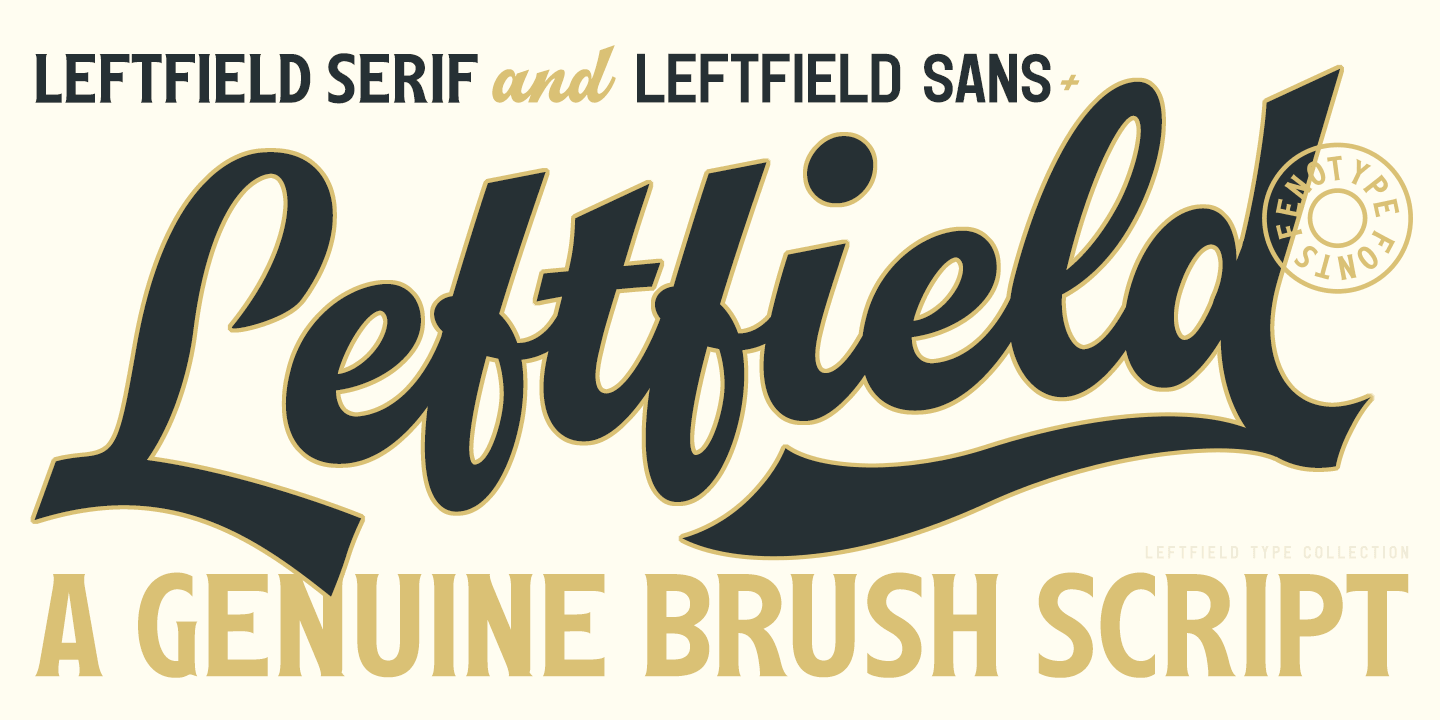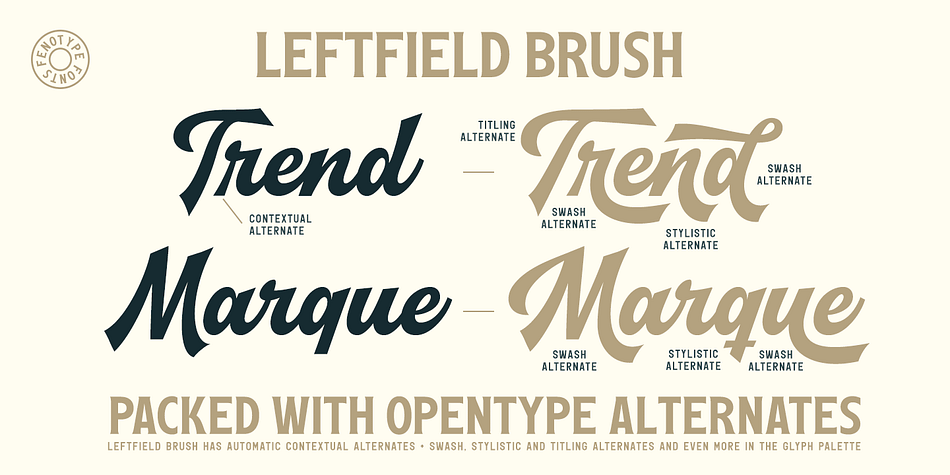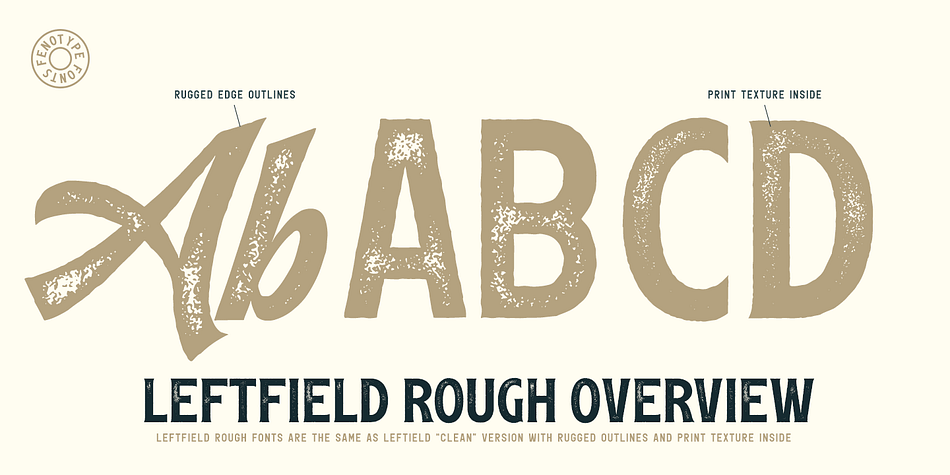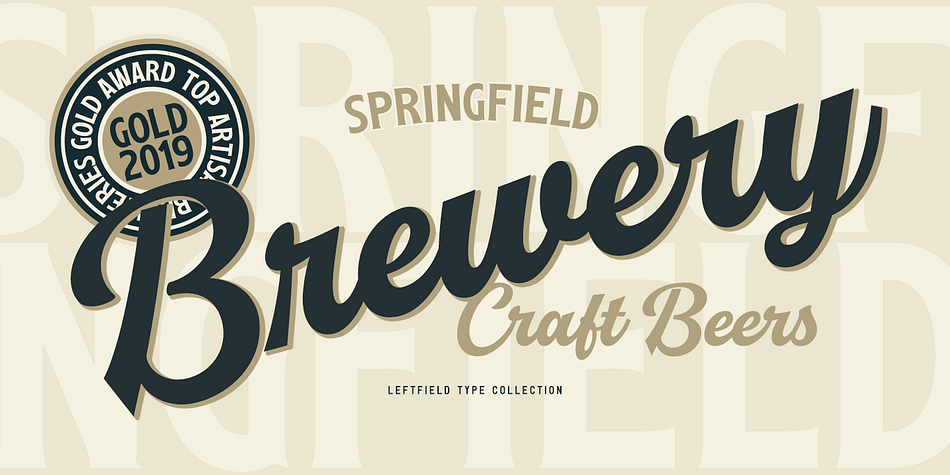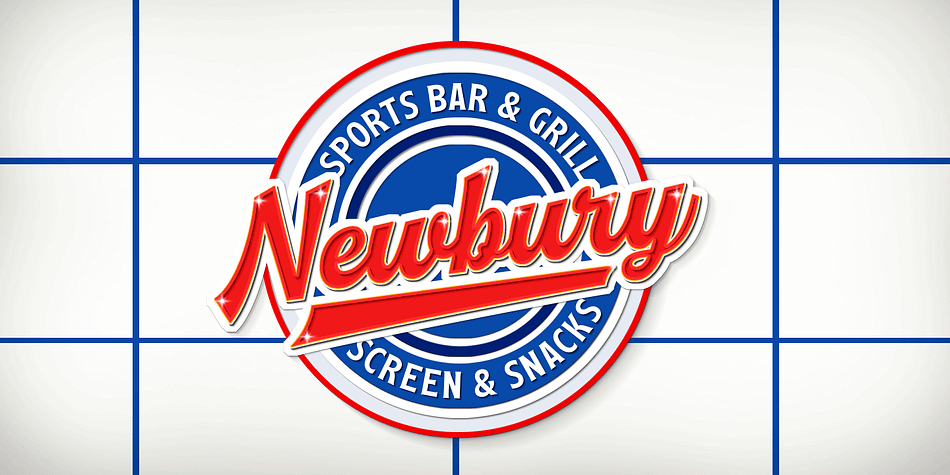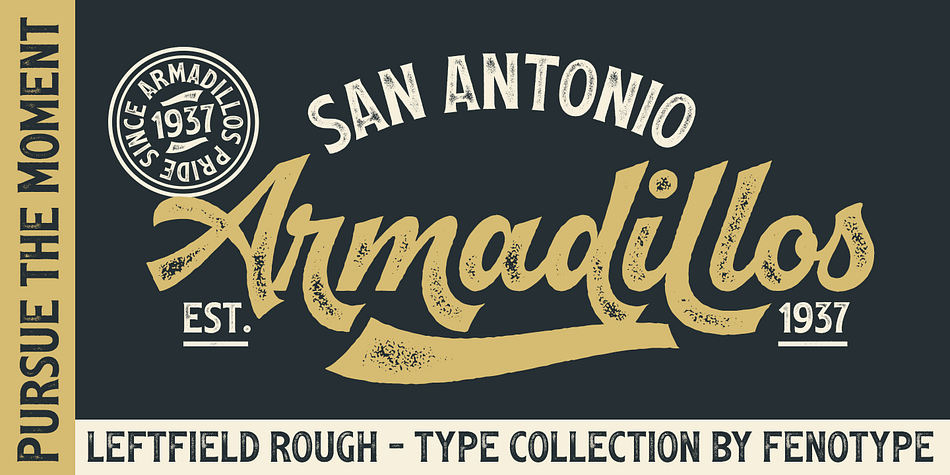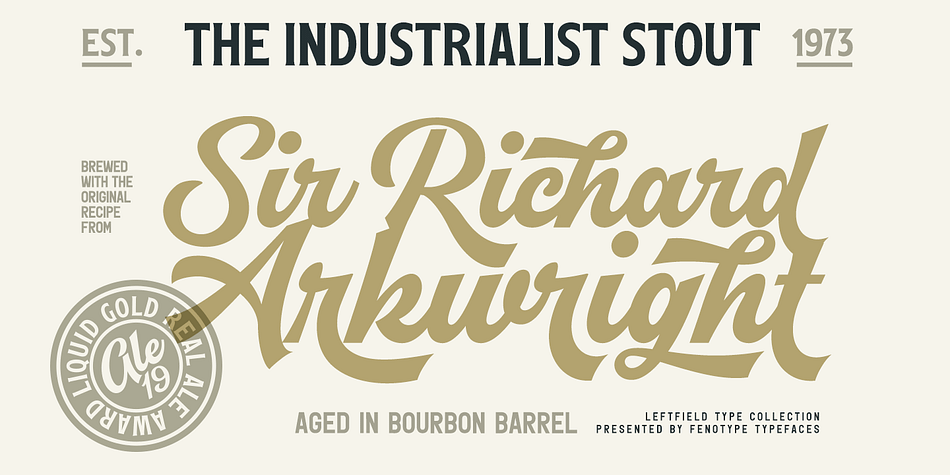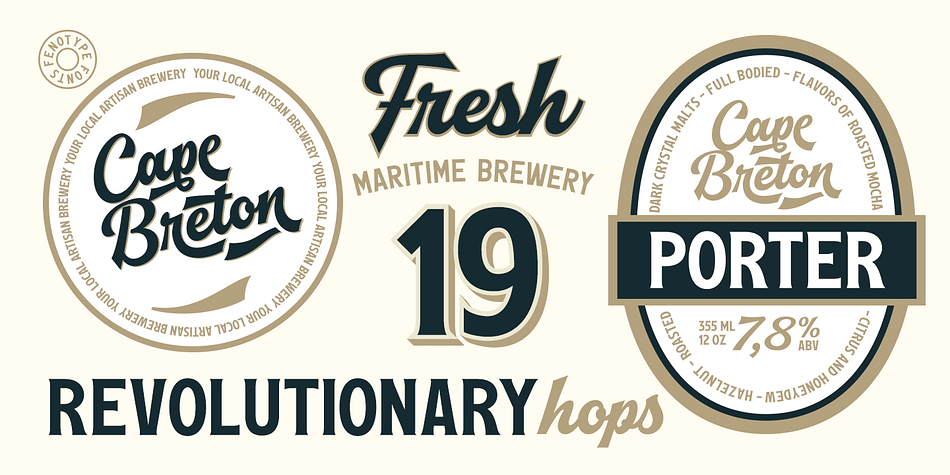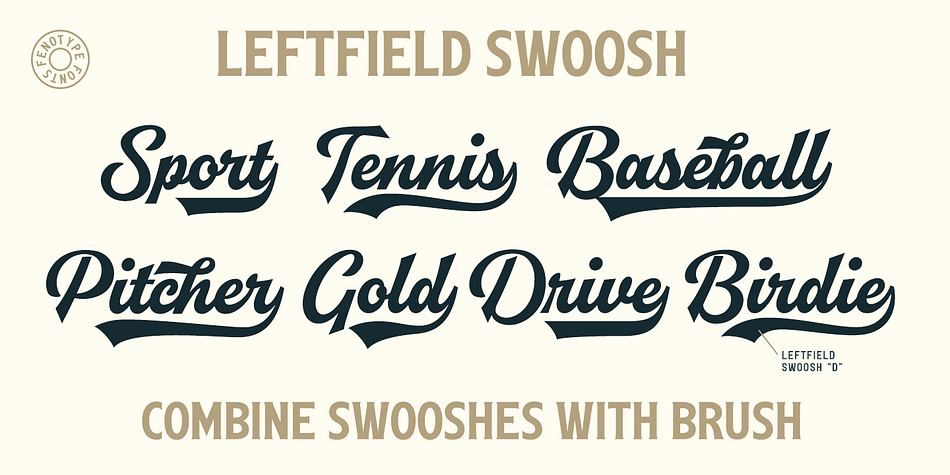
Designed by Emil Bertell, Leftfield is a multiple classification font family. This typeface has twelve styles and was published by Fenotype.
Leftfield - a stylish vintage font collection.
Leftfield collection includes following:
•Leftfield Brush -a bold baseball style script with Clean and Rough version
•Leftfield Swoosh -a set of swooshes designed to go with Leftfield Brush. Clean and Rough version.
•Leftfield Sans -a sturdy all caps sans serif with Regular and Bold weight and Clean and Rough version of both
•Leftfield Serif -a sturdy all caps serif with Regular and Bold weight and Clean and Rough version of both
Leftfield Brush is a bold and strong sports team style vintage connected script. It’s great for any kind of display use from impressive logos to packaging and headlines. Brush is equipped with automatic Contextual Alternates that keep the connections smooth. In addition there is Swash, Titling and Stylistic alternates for standard characters. Try combining Leftfield Swoosh to make stunning compositions. Leftfield Sans and Serif work great as themselves, they make striking word blocks and they are designed to go with the Brush. Try Leftfield Serif in large sizes to make the best out of the subtle serif’s.
Leftfield Rough versions simulate a printed version of the font for authentic vintage look. They’re otherwise the same font but with a rugged outline and print texture inside the characters.
Leftfield has a wide language support including West European, Central European, Baltic, Turkish and Romanian character sets.